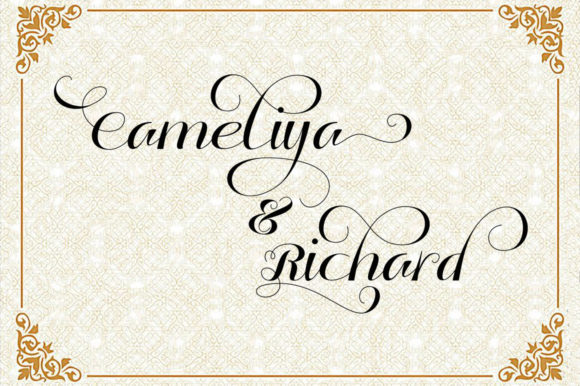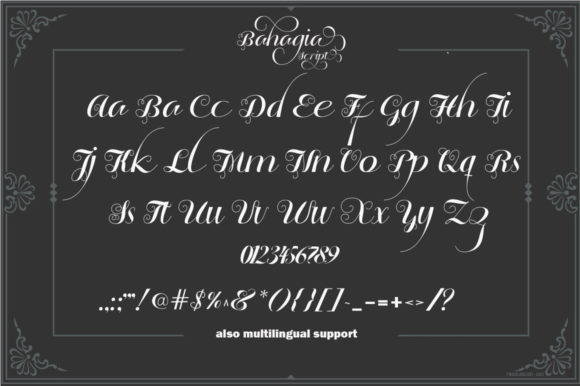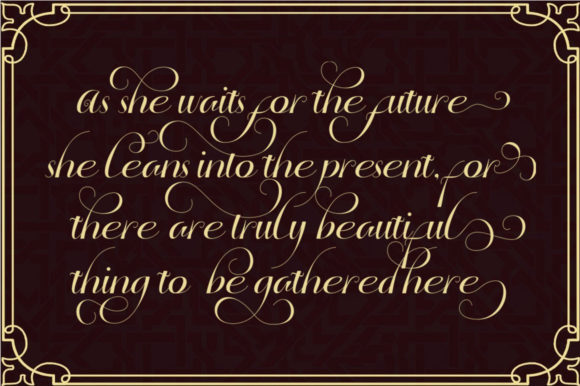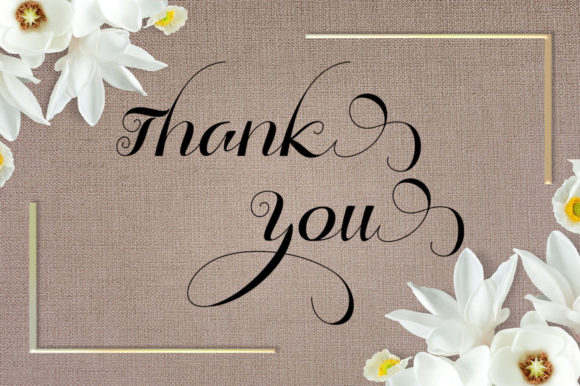
Unlocking the Power of Handwritten Charm
As a designer, have you ever found yourself pouring over a blank canvas, struggling to bring your vision to life? The blank page stares back, taunting you with its emptiness. But then, it happens – a spark of inspiration strikes, and your creative juices begin to flow. You reach for your trusty font library, and that’s when you see it: Bahagia Script Font, a dazzling script font that’s just begging to be used.
This beautifully crafted font is more than just a pretty face – it’s a versatile tool that can elevate any design project. Whether you’re working on a branding campaign, a wedding invitation, or a social media graphic, Bahagia Script Font has the potential to take your creations to the next level. With its PUA encoding, you’ll have access to a wide range of glyphs and swashes, giving you endless possibilities for customization.
Bahagia Script Font Key Features
- Font Style: Script Font, a beautiful and elegant handwriting font
- Size: Supports a wide range of font sizes, from 8pt to 120pt, making it suitable for various applications
- Resolution: Scalable up to 72,000 DPI, ensuring crisp and clear text at any resolution
- Language Support: Supports multiple languages, including Latin-based languages, making it a versatile font for global use
- Unique Characteristics: Distinctive, flowing script style with a natural, handwritten feel, perfect for adding a personal touch to designs
Bahagia Script Font Review
I recently had the chance to work with Bahagia Script Font, and I must say it’s a beautiful addition to any design project. Here are some of its highlights:
- ✨ Elegant and refined letterforms that evoke a sense of sophistication and elegance. Perfect for luxury brands or high-end designs.
- ✨ The font is highly versatile and works well in a variety of contexts, from invitations to marketing materials.
- ✨ The script style adds a touch of whimsy and personality to any design, making it a great choice for creative projects.
- ⚠️ The font may be difficult to read in smaller sizes or in situations where the text is dense.
- ⚠️ The script style may not be suitable for technical or instructional content, where clarity is crucial.
- ⚠️ The font is not highly customizable, so you may need to work with it as is.
Overall, I’m impressed with Bahagia Script Font. It’s a beautiful and elegant addition to any design project, but it may not be the best choice for every situation. With some careful consideration of its limitations, it can be a valuable asset in your design toolkit.
The Bahagia Script Font is ideal for creative projects, such as:
- Food and drink menus
For the most effective use of the font, consider combining it with other creative elements, such as illustrations or graphics, to create a unique and eye-catching design.
Alternatives to Bahagia Script Font
Great Vibes is a modern, elegant script font ideal for creating a sense of sophistication and luxury. It features a unique, flowing style that’s perfect for headings, titles, and quotes. When to use: fashion, luxury, and high-end branding.
Great Vibes compares to Bahagia Script Font by offering a more refined and polished look. While Bahagia Script Font has a more playful and whimsical feel, Great Vibes exudes a sense of sophistication and elegance.
Lobster is a bold, cursive script font that’s perfect for creating a fun and playful atmosphere. It’s ideal for headings, titles, and promotional materials. When to use: entertainment, food, and social media branding.
Lobster compares to Bahagia Script Font by offering a bolder and more attention-grabbing look. While Bahagia Script Font has a softer and more delicate feel, Lobster is perfect for making a statement.
Pacifico is a beautiful, elegant script font that’s perfect for creating a sense of calm and serenity. It features a unique, flowing style that’s ideal for headings, titles, and quotes. When to use: wellness, travel, and outdoor branding.
Pacifico compares to Bahagia Script Font by offering a more laid-back and relaxed look. While Bahagia Script Font has a more energetic and playful feel, Pacifico is perfect for creating a sense of calm and tranquility.
The recommended line height for Bahagia Script Font is 1.2-1.5 times the font size. This will provide sufficient space between lines and improve readability. You can adjust the line height according to your design needs and target audience.
Does Bahagia Script Font support Unicode characters?
Yes, Bahagia Script Font supports a wide range of Unicode characters, including Latin, Cyrillic, and Greek alphabets. You can use it to display text in multiple languages, but keep in mind that some characters may not be available in certain font styles or weights.